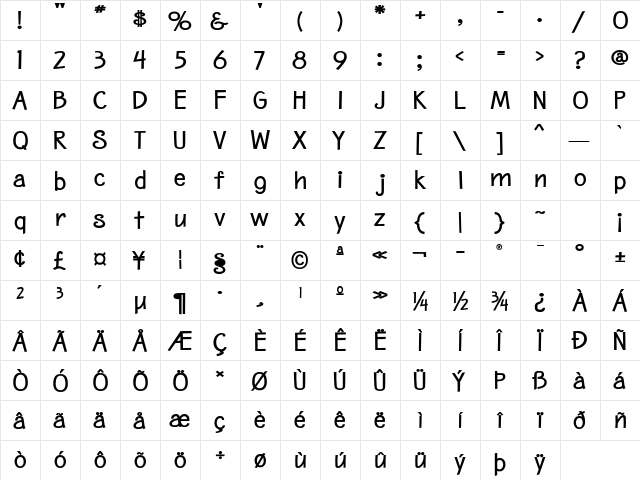
Birdlegs BdSBG
Design Context for Birdlegs Typeface
Birdlegs takes a measured approach to typography — its balanced proportions and neutral character make it a reliable workhorse for both digital and print work.